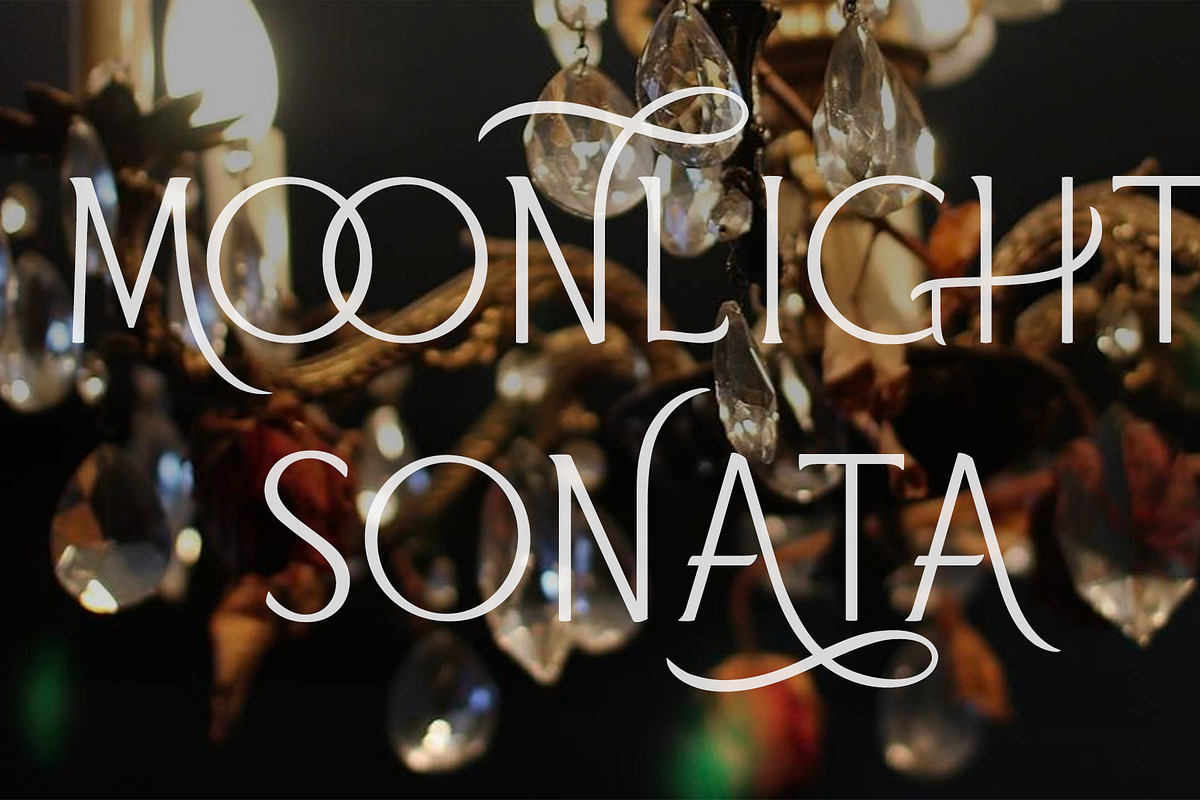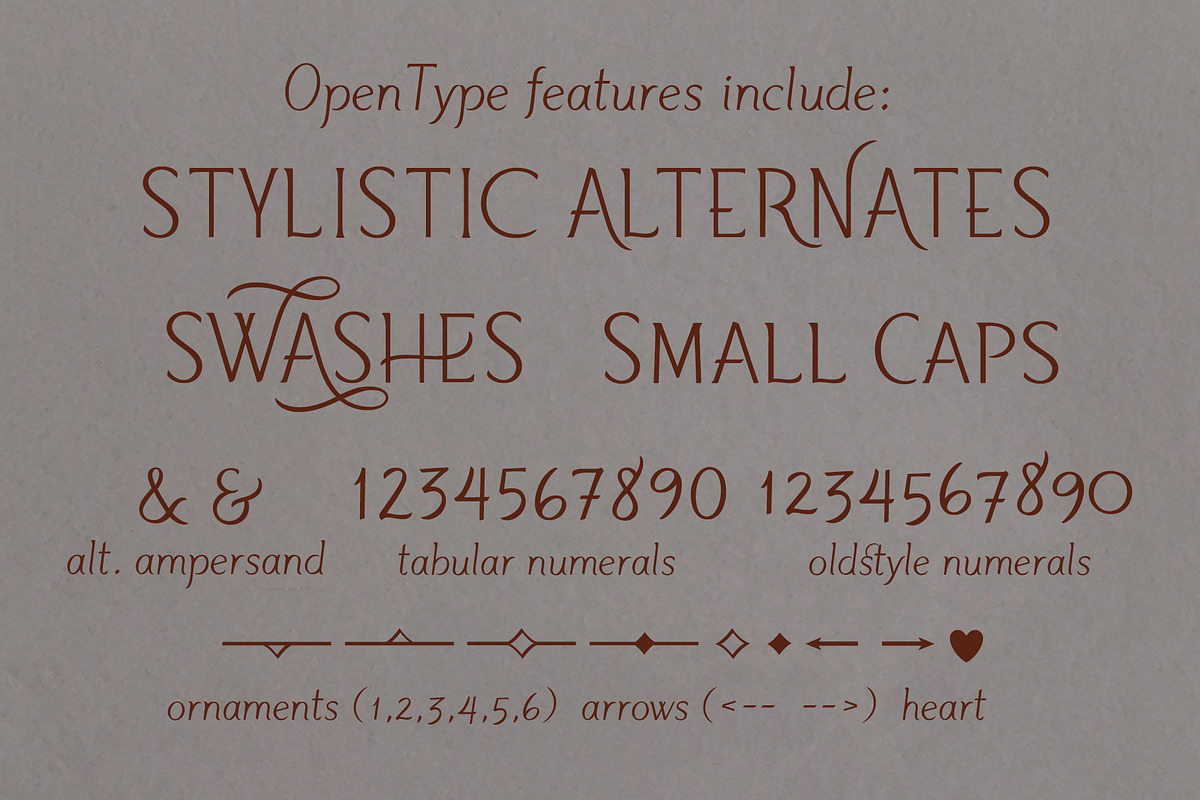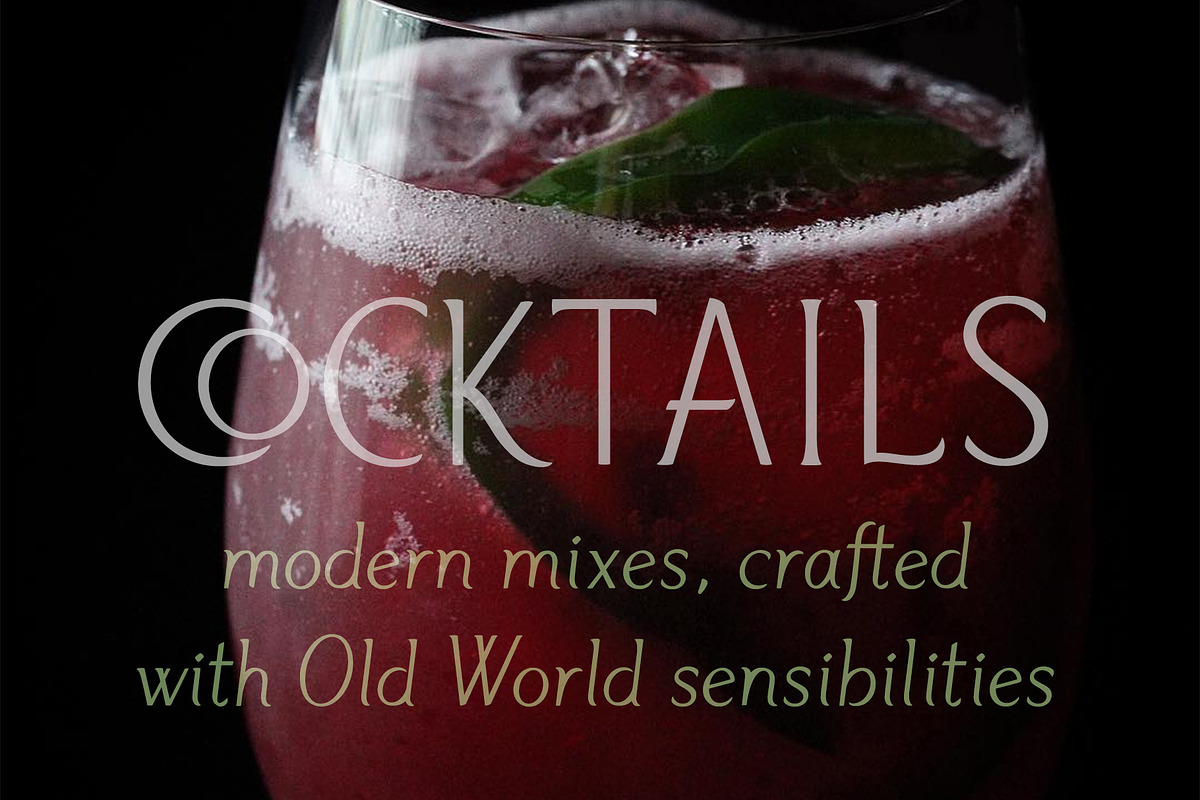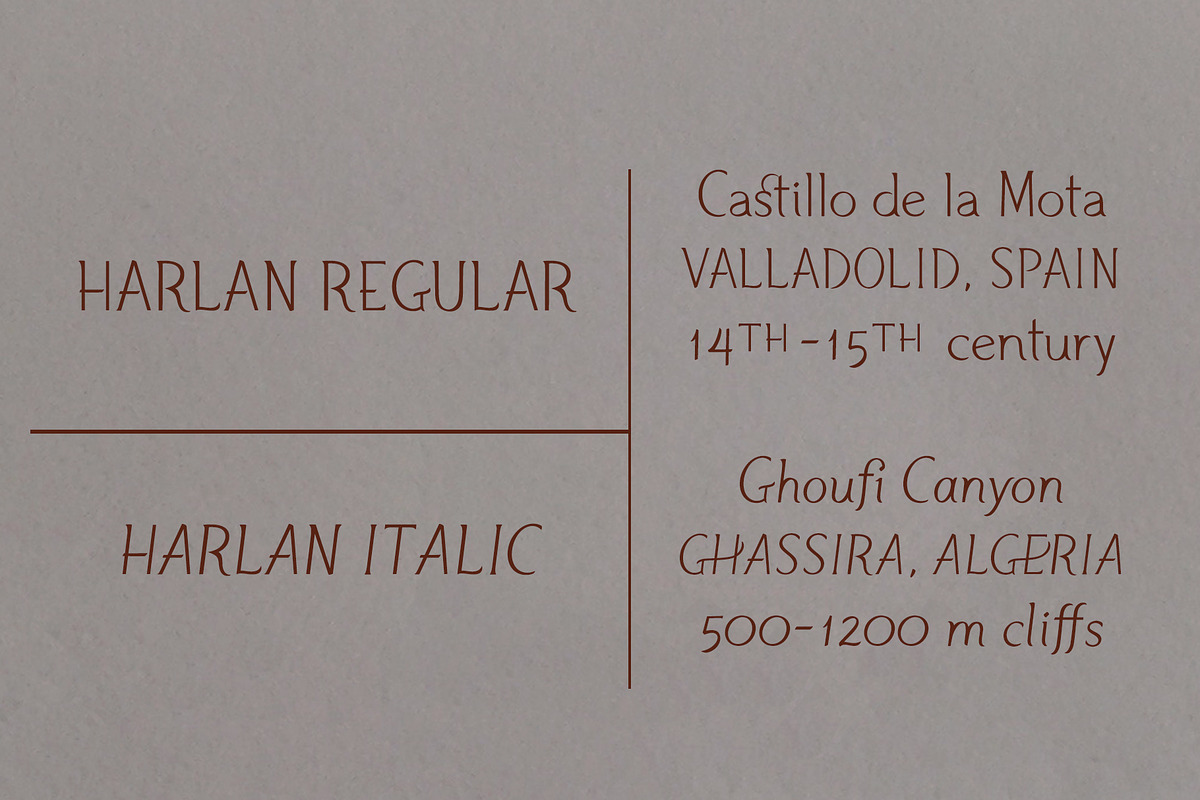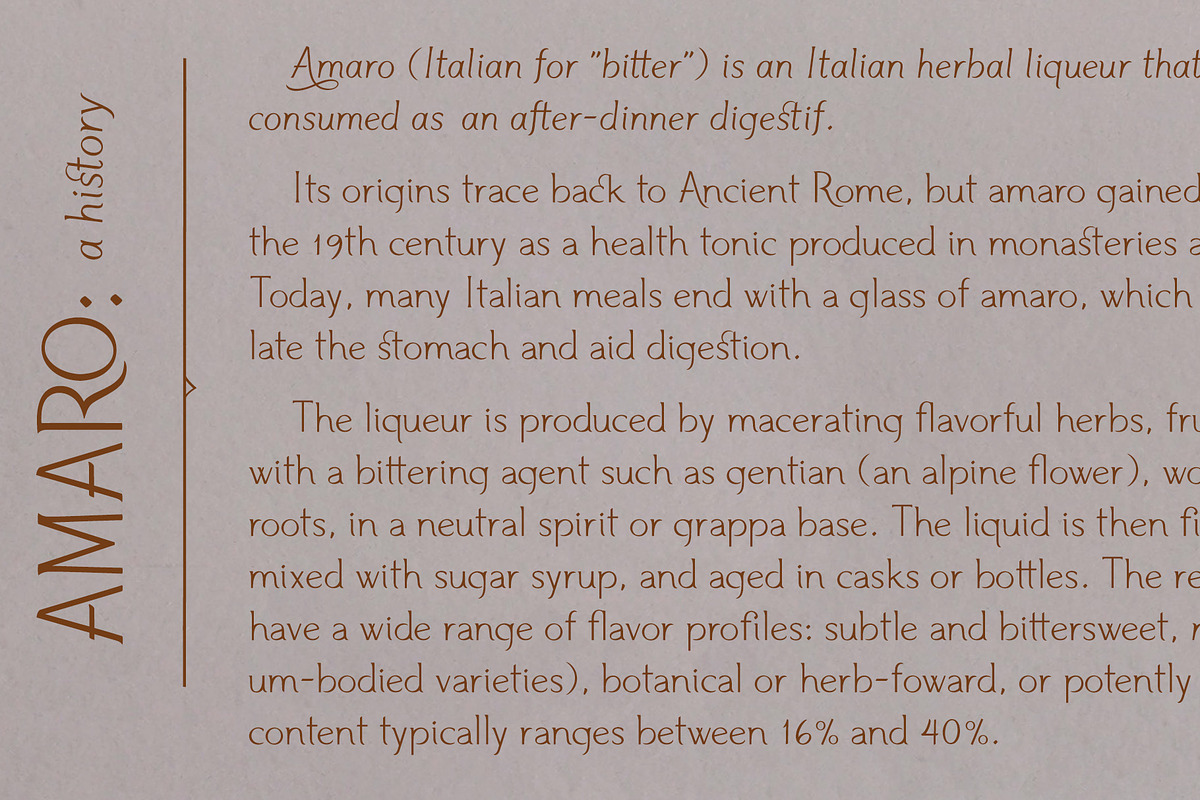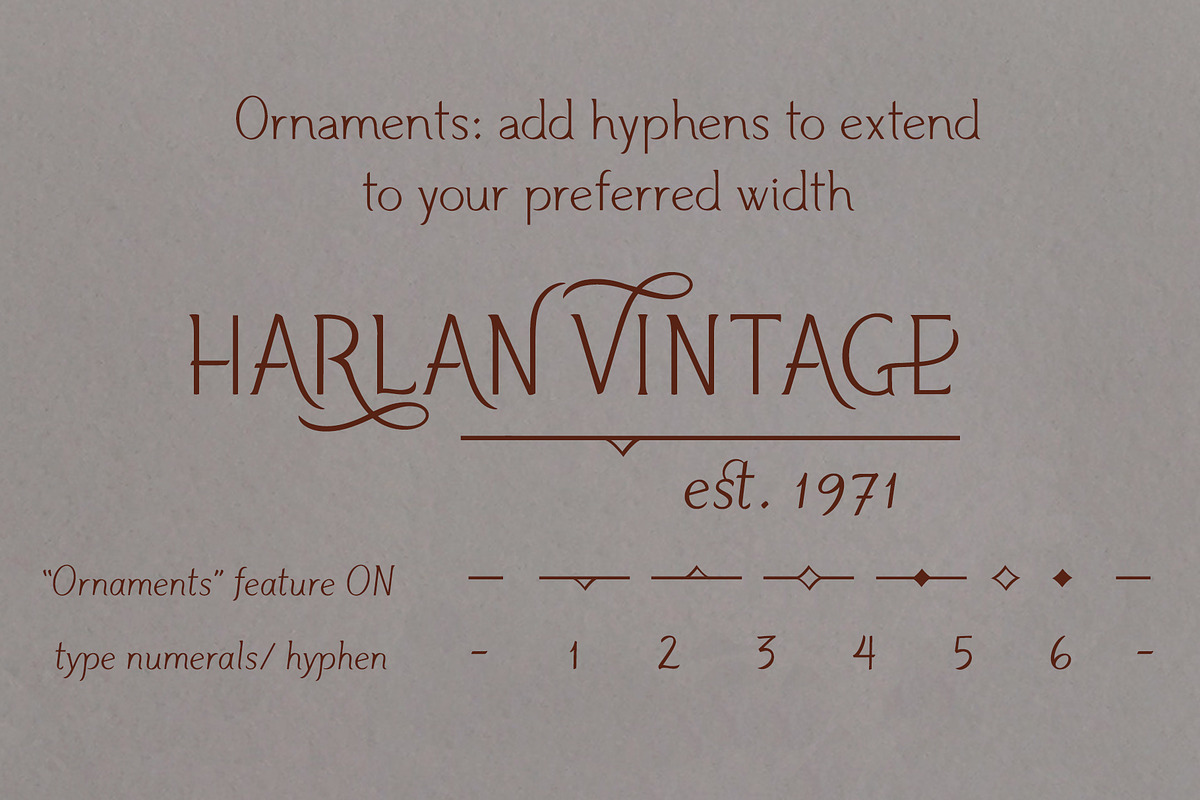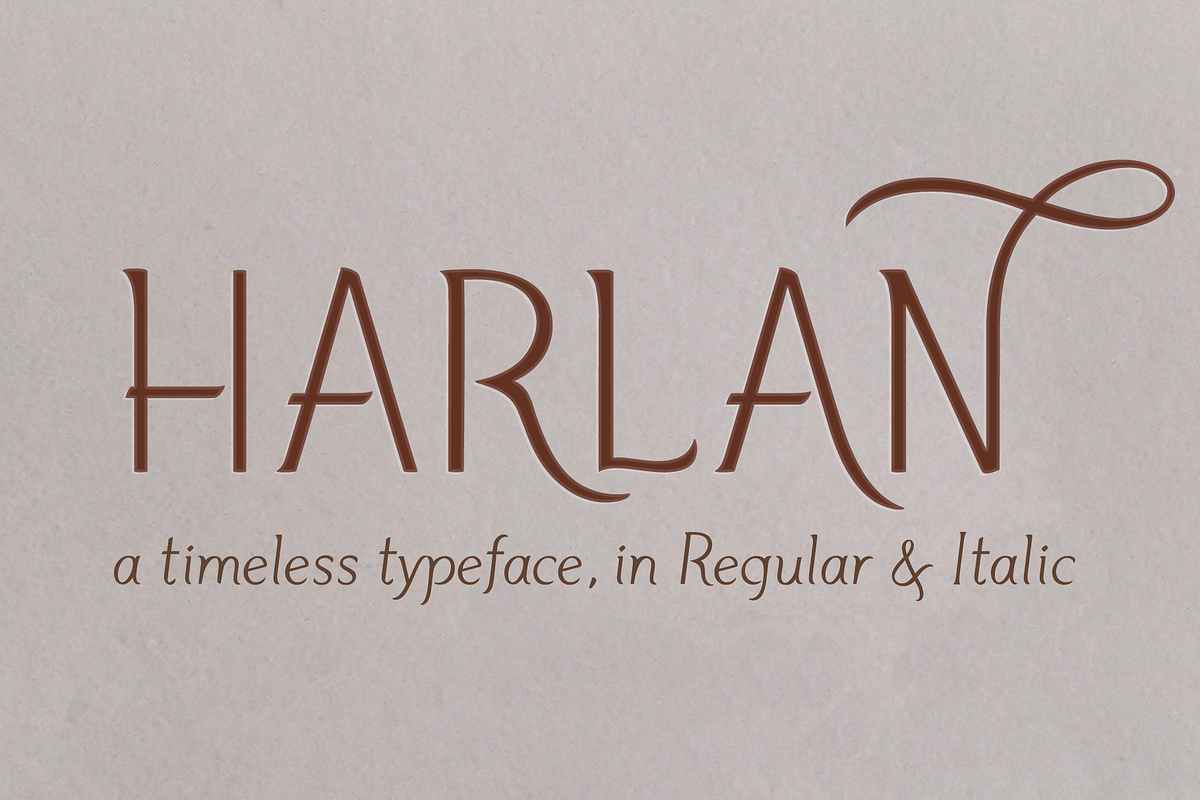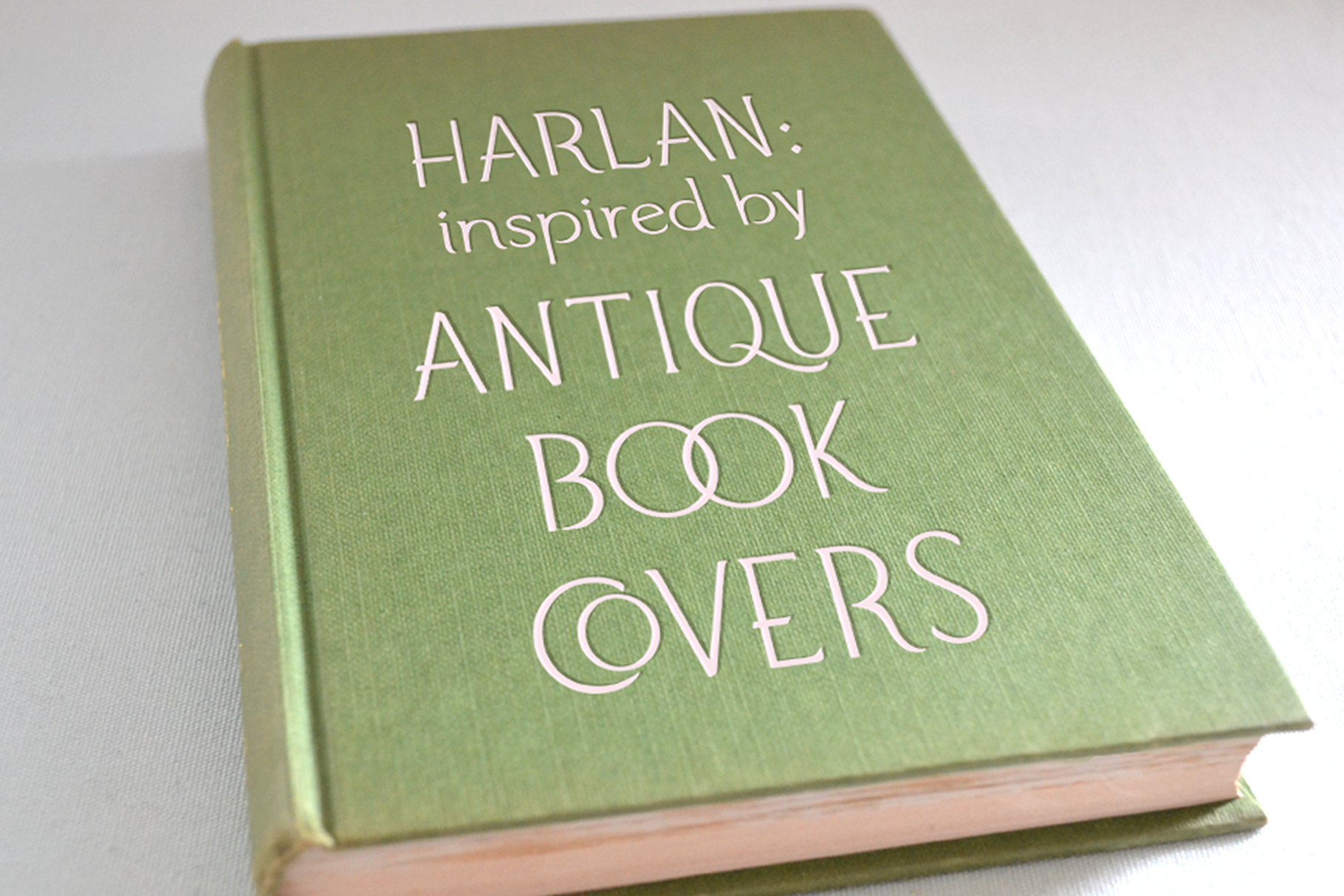
HARLAN - a timeless typeface
Harlan is from another place and time: with its barely-there, knife's-edge serifs, and its smooth curves and flourishes, Harlan feels both vintage and modern; both feminine and masculine. Inspired by the Baltimore bar "WC Harlan", which in turn was inspired by the old candle-lit bars of France, the tucked-away osterias of Italy, and the antique books and journals one might find in a patron's hand.